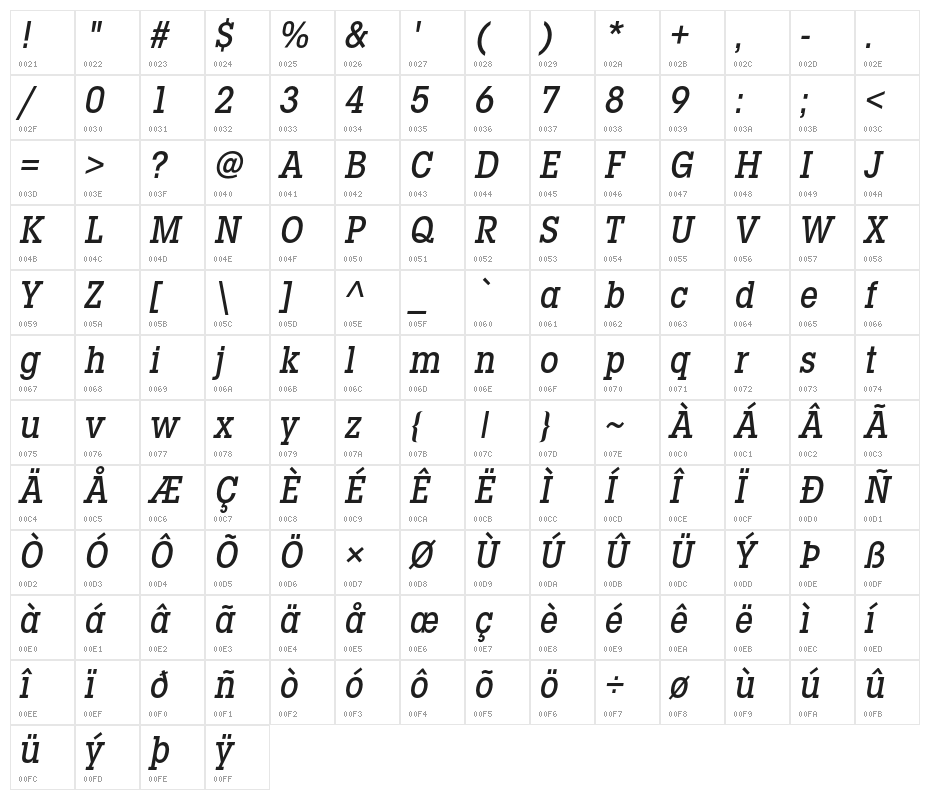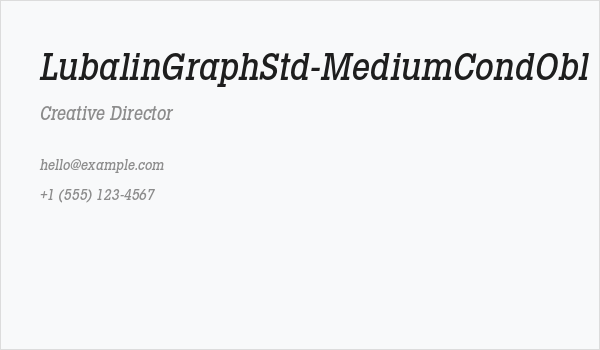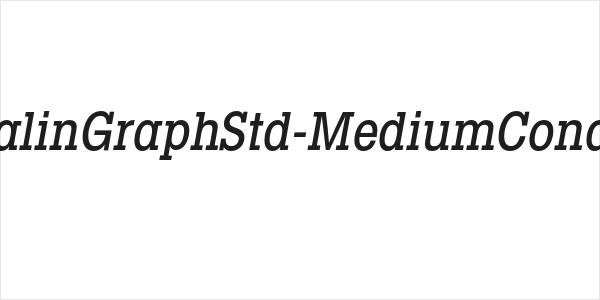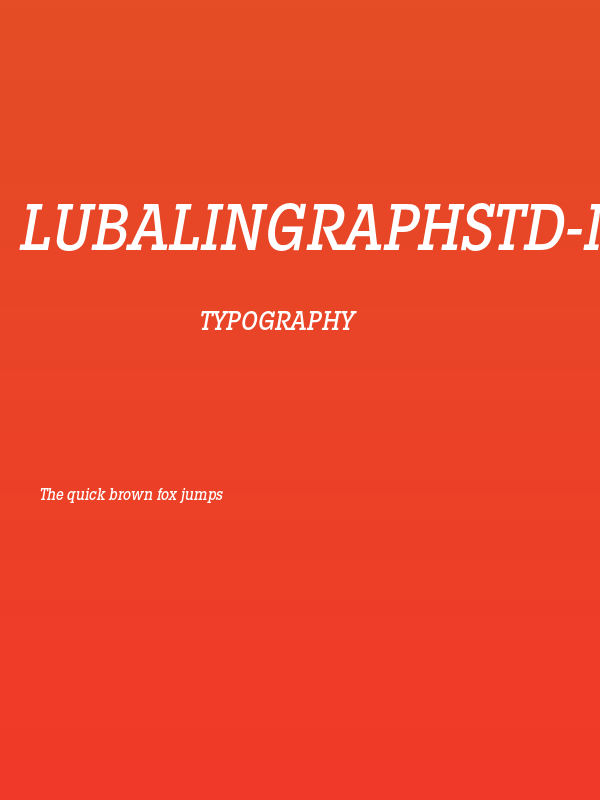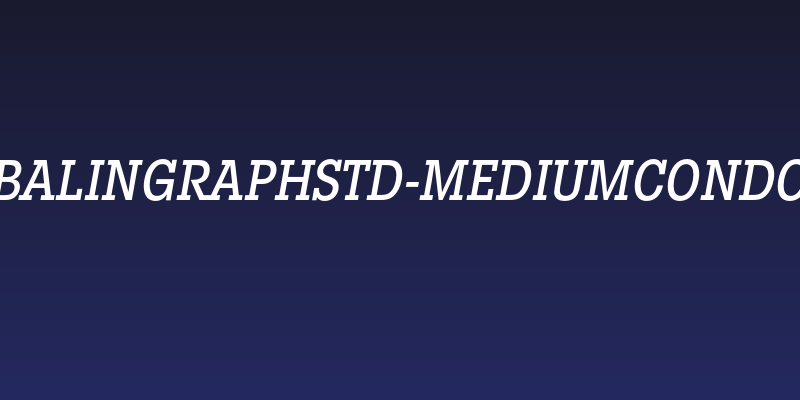
LubalinGraphStd-MediumCondObl Font
LubalinGraphStd-MediumCondObl Description
This font features a distinctive slab serif style with a medium weight and a condensed width. Its oblique angle adds a dynamic and modern touch, making it stand out in various design contexts. The characters are well-defined with a moderate contrast in stroke thickness, providing a balanced and readable appearance. The uppercase letters are bold and commanding, while the lowercase letters maintain a consistent flow. The numerals are clear and proportional, and the special characters are designed to complement the overall aesthetic. This font is versatile and can be used in a variety of design projects.
| Use Case | Headlines, Logos, Editorial Design |
| Proposed Projects | Ideal for branding, editorial design, advertising, and packaging where a modern yet classic look is desired. |